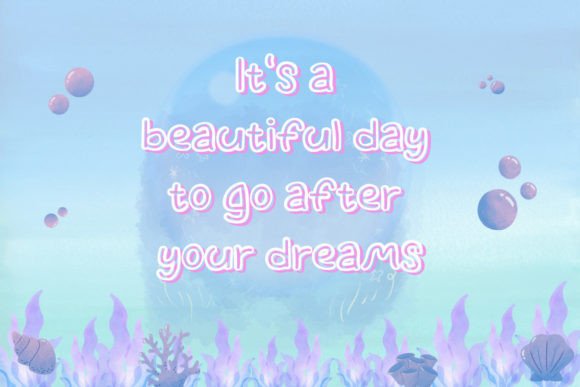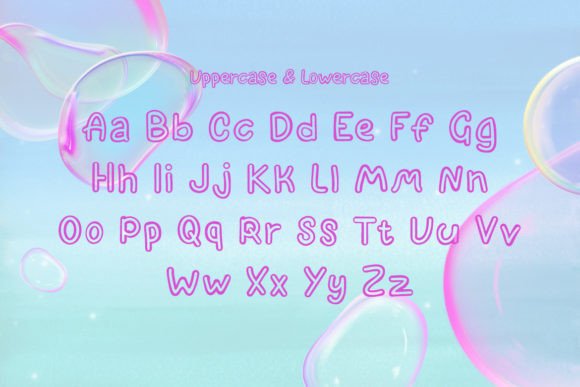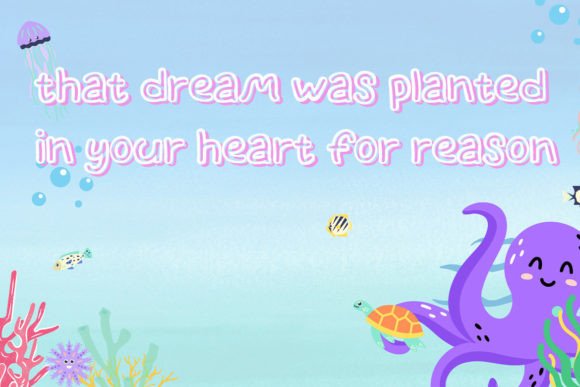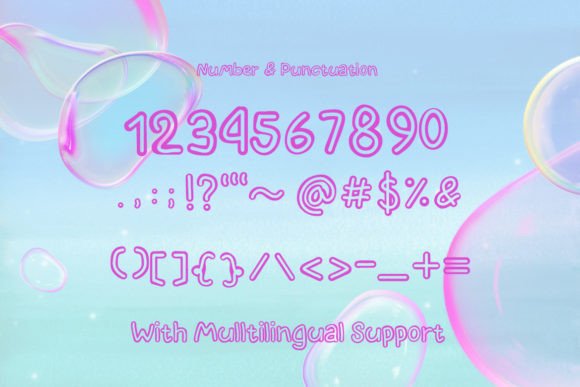
Introduction to Morry Blube Font
Remember the feeling of sitting in a dusty library, surrounded by colorful children’s books and letting your imagination run wild? That’s exactly the kind of whimsy that the Morry Blube Font embodies. As a designer, you’re always on the lookout for unique design resources that can add that extra touch to your creative project, and the Morry Blube Font is sure to deliver.
With its quirky and playful display font, Morry Blube Font is the perfect addition to any design project that needs a dash of childlike wonder. Whether you’re working on a comic book, a children’s book, or even a promotional campaign for a family-friendly brand, this font is sure to bring a smile to your audience’s faces.
Key Features of Morry Blube Font
- Unique, modern script font with a transparent background, ideal for use on any background
- Supports a wide range of languages, making it a versatile choice for multilingual projects
- Perfect for use in logos, branding, invitations, and other creative projects requiring a distinctive touch
Honest Review: Morry Blube Font
I recently had the chance to work with the Morry Blube Font, and I must say it’s been a pleasant experience. This font is perfect for designers looking for a high-quality design resource for their creative projects. The free download option is definitely a plus, making it easily accessible to everyone.
- ✨ Unique and elegant design, ideal for various creative projects
- ✨ High-quality vector format, suitable for scalable use
- ✨ Compatible with most design software and platforms
One thing to note is that the font’s transparent background might require some additional adjustments when working with complex designs. Additionally, some users may find the font’s style to be a bit too minimalist for certain projects.
- Limitations:
- ⚠️ May require additional adjustments for complex designs
- ⚠️ Style may not be suitable for all creative projects
Overall, the Morry Blube Font is a solid addition to any designer’s toolkit. Its high-quality design and versatility make it a great resource for various creative projects, and the free download option is a definite plus. With a bit of creativity and experimentation, you can achieve amazing results with this font.
Morry Blube Font
Getting the Most Out of Morry Blube Font
For optimal results, pair Morry Blube Font with high-quality images and a clear, concise message. Experiment with different font sizes, colors, and styles to create visually appealing designs.
Morry Blube Font is commonly used for social media graphics, logos, and branding materials. Its unique style and transparent background make it an ideal choice for creative projects that require a touch of elegance and sophistication.